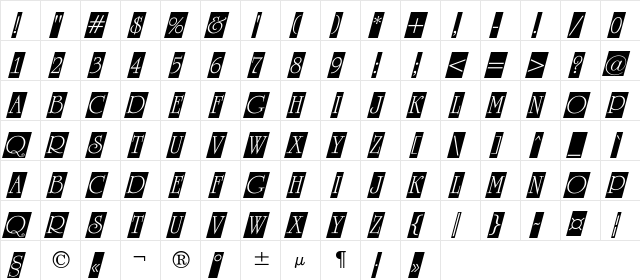
a_RomanusTitulCmDino Regular
Design Context for a_RomanusTitulCmDino Typeface
a_RomanusTitulCmDino takes a measured approach to typography — its balanced proportions and neutral character make it a reliable workhorse for both digital and print work.